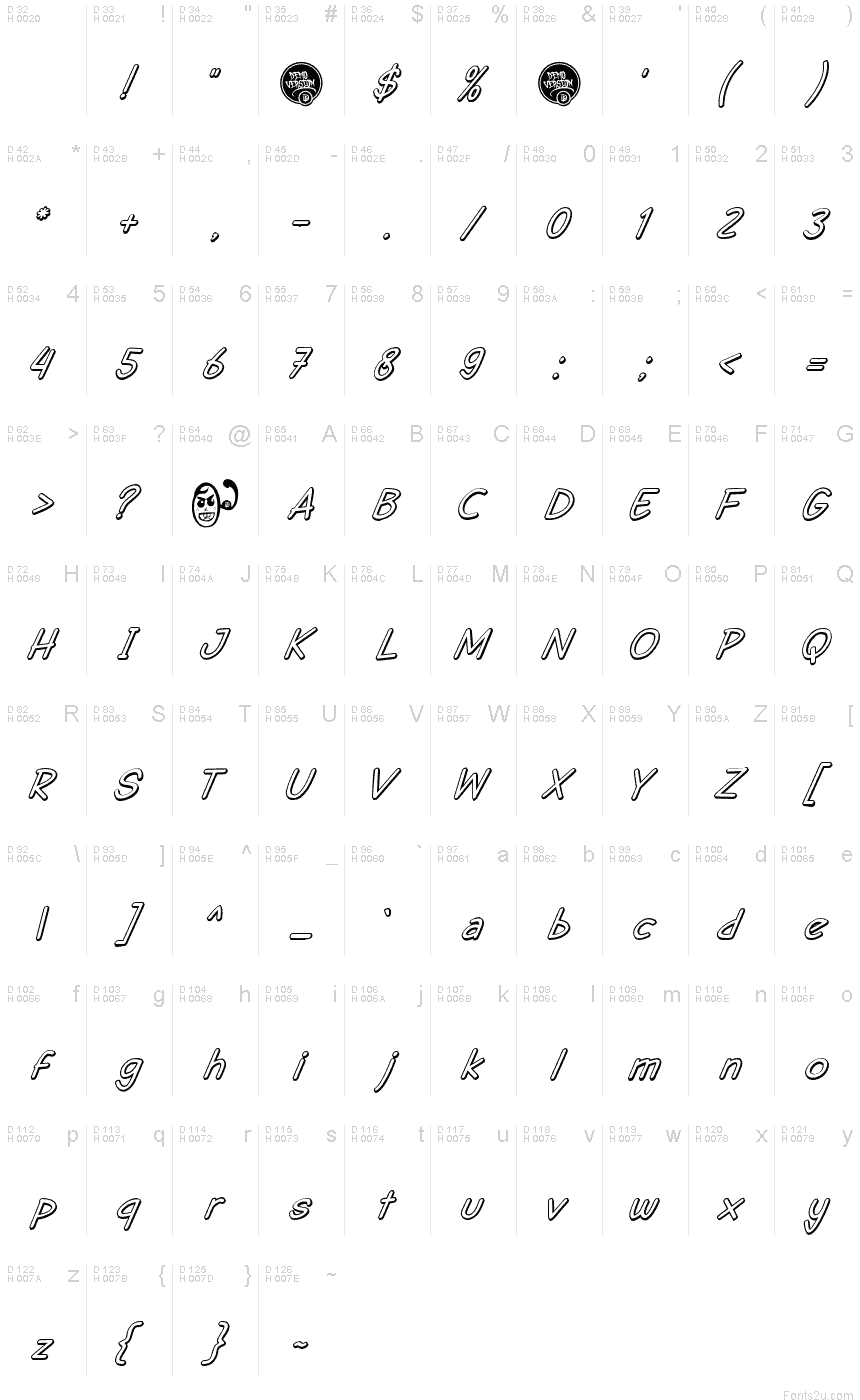
DHF Semangat 2012 Shadow Italic, designed by Dexsar Harry Anugrah, is a free comic-style outlined display font with a steep forward slant and dark offset shading. The loose curves keep its energetic lean lively and informal.
Posters are an especially good fit because the broad hollow letters resemble hand-drawn show lettering. It also suits snack packaging, school event graphics, and lighthearted merchandise aimed at younger audiences. In those settings, the shadow can turn a name or slogan into a sticker-like emblem rather than ordinary text.
The special font for Indonesian youth to never stop working.